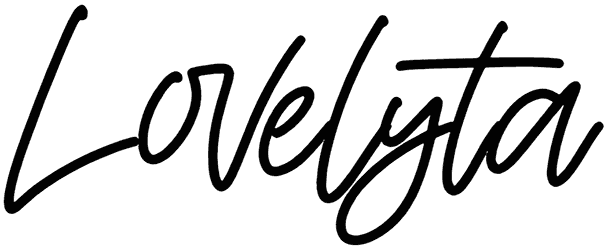
Lovelyta Font
Are you in search of something casual for your branding projects? Thanks to a handwritten style and modernized construction, Lovelyta font exudes flow characteristics.
You can apply this script font to printed and screen texts, informal letters, friendly gatherings, and much more. Truly a must-have not to be missed! It comes in two styles, italic and regular ones to add a touch of humble charm to any design project.